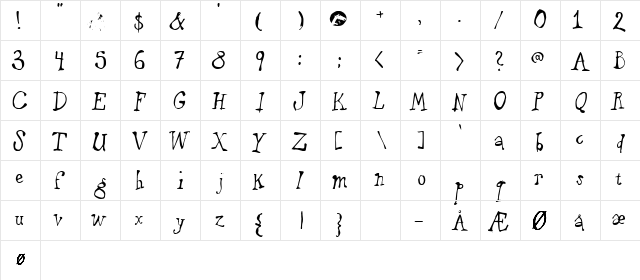
puppetFace Regular
Design Context for puppetFace Typeface
puppetFace is a composed and adaptable typeface that performs quietly and consistently across a wide range of design contexts.